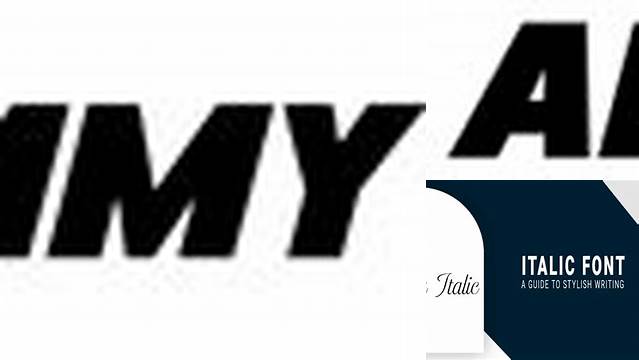
Free Rummy Italic Fonts: The Ultimate Guide
Hey guys, let's dive into the world of rummy and, specifically, how to spice up your game with the perfect font! If you're a fan of rummy β whether you're playing online, designing a game, or just love the aesthetic β you know that the font can make a huge difference. This article is all about rummy italic font free options, exploring why they're awesome, where to find them, and how to use them to level up your rummy experience. We'll cover everything from the history of fonts to the practical applications of different styles. So, buckle up, and let's get this font party started!
The Allure of Rummy and the Importance of Font
First things first, why is the rummy game so captivating? Rummy, a card game that's been a staple in households for generations, combines strategy, skill, and a dash of luck. The core gameplay revolves around forming sets and runs, discarding unwanted cards, and strategically managing your hand to be the first to go out. It's the blend of these elements that keeps players coming back for more. But there's a secret ingredient to enhancing that experience: the visual presentation. Think about it: the cards themselves, the game interface (if you're playing digitally), and even any accompanying text all contribute to the overall feel of the game. This is where the italic font comes into play, especially when you are searching for a rummy italic font free option.
The right font choice can significantly affect your enjoyment. A well-chosen font makes the game more engaging, easier to read, and adds a touch of personality. Imagine a clunky, hard-to-read font versus a sleek, elegant one. Which one would you prefer? I bet most of you would go for the latter, right? The font is not just a stylistic choice; it's also a functional one. It can convey the mood of the game β serious, fun, classic, or modern. When you're looking for a rummy italic font free download, consider how that font will reflect your style. It's a crucial part of making the whole thing visually appealing and making your rummy experience all the better. Itβs especially important if you are a game developer or even just a fan who wants to customize their virtual rummy interface.
Now, let's talk about the characteristics of a great rummy font. It needs to be clear, legible, and visually appealing. Italic fonts, in particular, can add a dynamic flair, making the text appear slightly slanted, which can inject a sense of movement and energy. This is why a rummy italic font free selection can be so important to the design. This style adds a touch of elegance and sophistication. It's all about finding the right balance β something that's easy on the eyes and complements the overall aesthetic of the rummy theme. Fonts can set the stage, improve legibility, and enhance the overall atmosphere. Whether you're creating a digital rummy game, designing a website dedicated to the game, or even just making personalized invitations for a rummy night, the perfect font can be your secret weapon.
Finding Your Perfect Rummy Italic Font Free
Using Your Rummy Italic Font: Tips and Tricks
Okay, you have downloaded your shiny new rummy italic font free font. Now what? Well, here's how to make the most of it. Knowing how to effectively use your chosen font is key to elevating your rummy projects, adding a touch of professionalism, and making your designs stand out. Here are some tips and tricks to guide you in the right direction.
First, consider the context. Where will you be using the font? Is it for a website, a game interface, or perhaps printed materials? Make sure the font is legible in that context. Some fonts look great in large sizes but are difficult to read when used in smaller sizes. Ensure that the font works well on screen and in print. A rummy italic font free download should be clear, concise, and easily readable. This will help you not to be penalized, so you have to do a little bit of homework. Keep in mind the background, colors, and other design elements when deciding where to use your font. If you're designing a digital interface, make sure the font is compatible with the platform and is easy to implement. If you are unsure, seek advice from a professional.
Next, pay attention to pairing. Mixing and matching fonts can be tricky but also rewarding. Try pairing your italic font with a simple, clean font for headings or body text. The contrast between the italic and a more straightforward style can create visual interest. For example, if you have a rummy italic font free style with a lot of flair, balance it with a more understated font for the rest of the text. Tools like Google Fonts offer pairing suggestions. You don't have to do it alone. The right font combinations can enhance readability, making your project both stylish and user-friendly. Experiment with different pairings to find a combination that enhances your design.